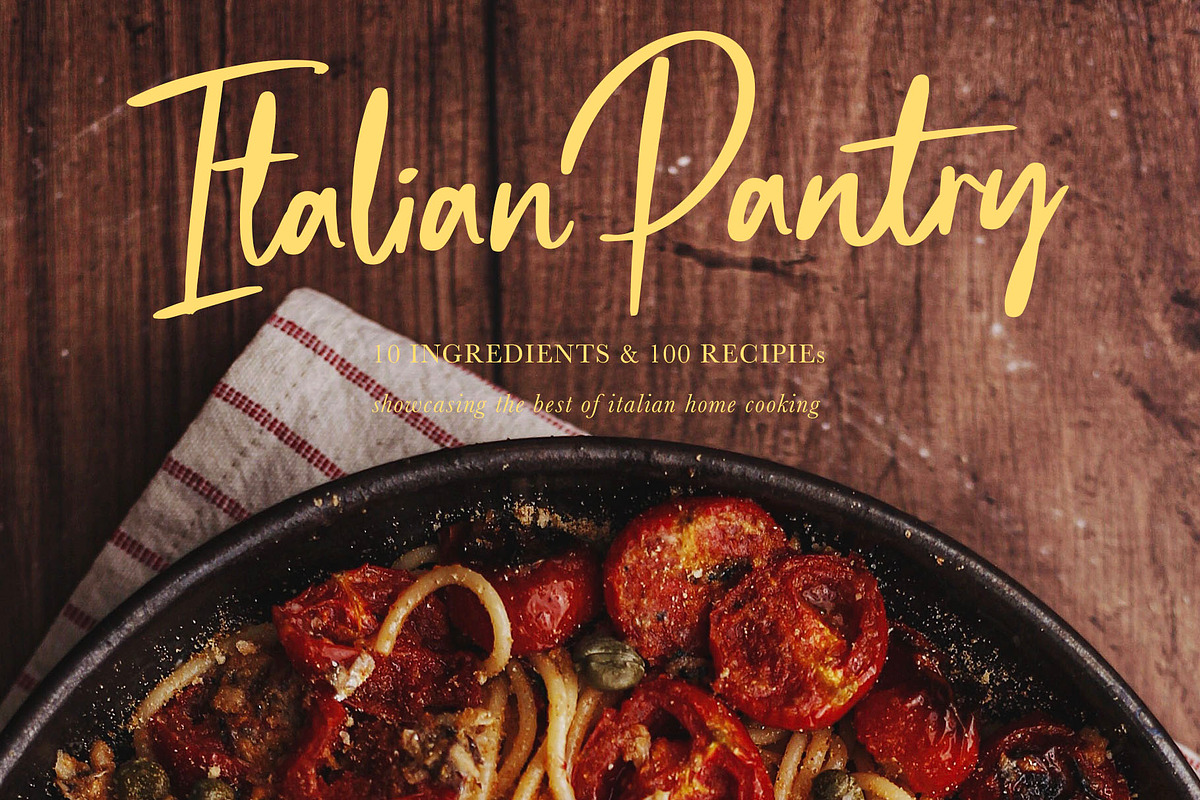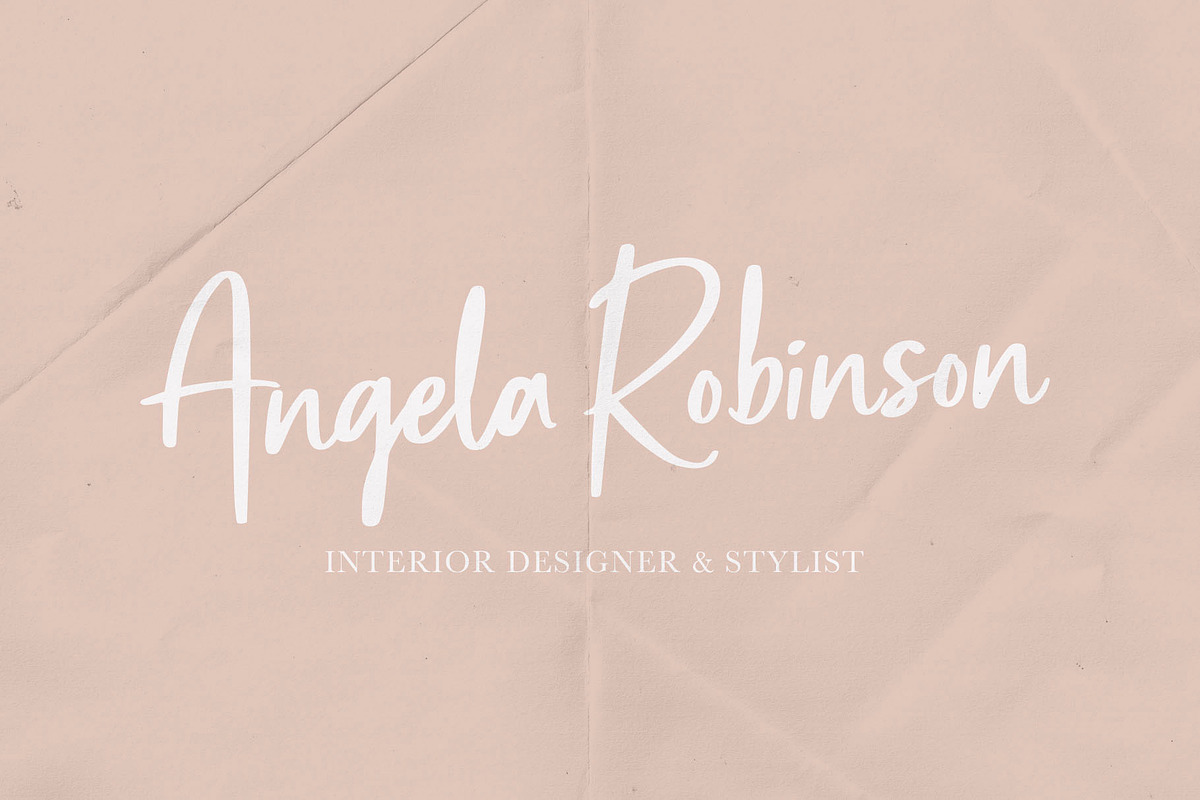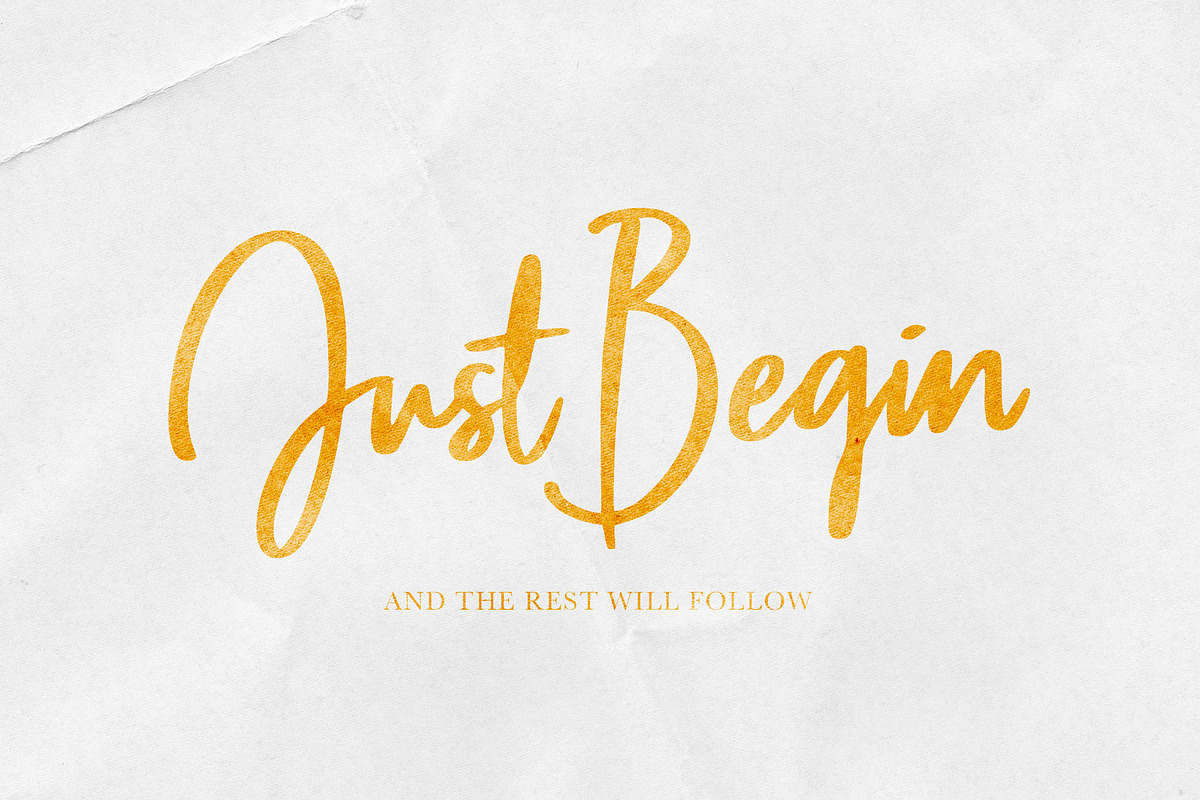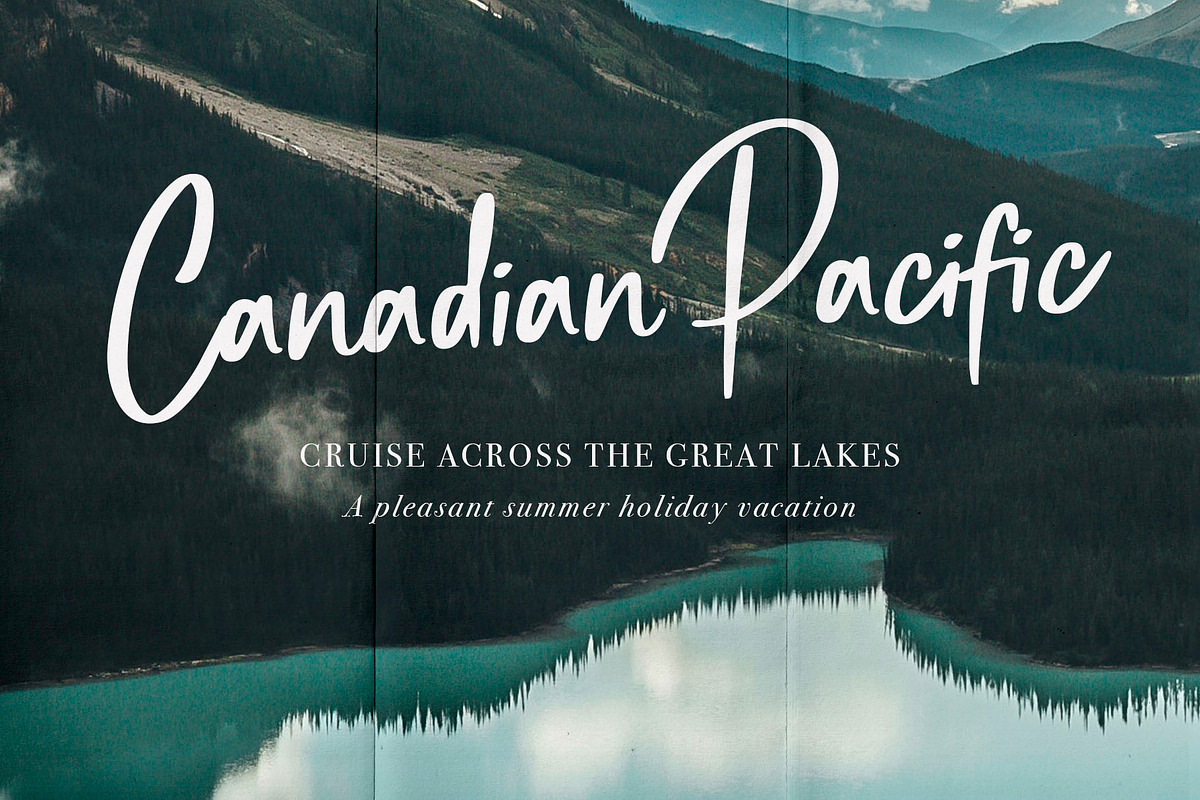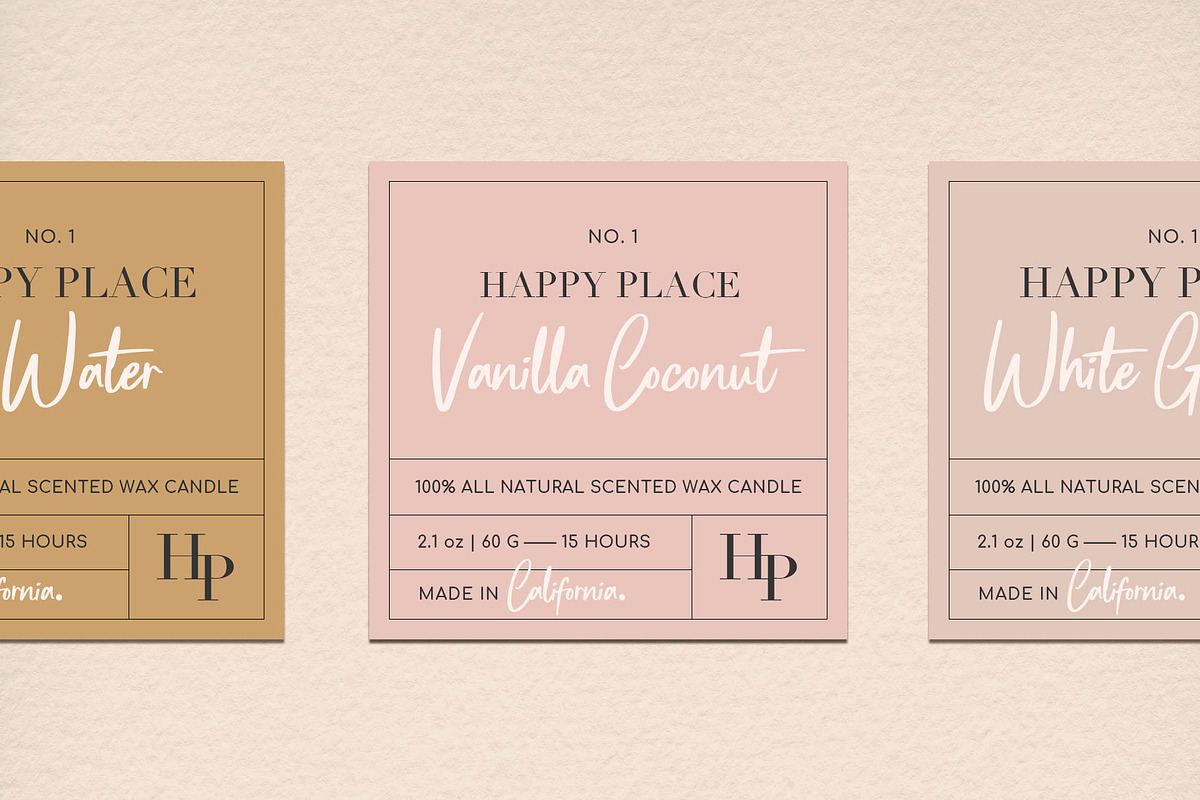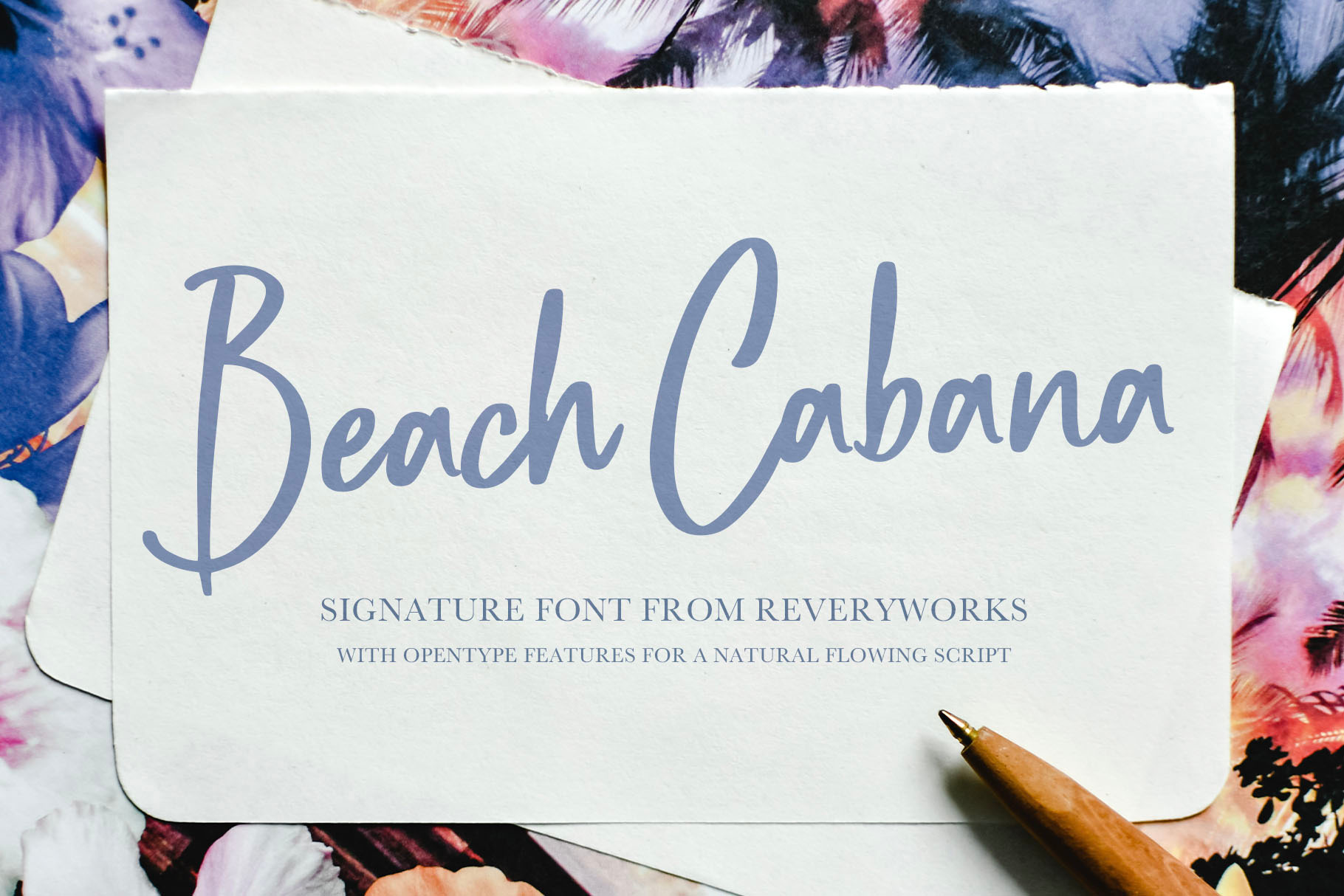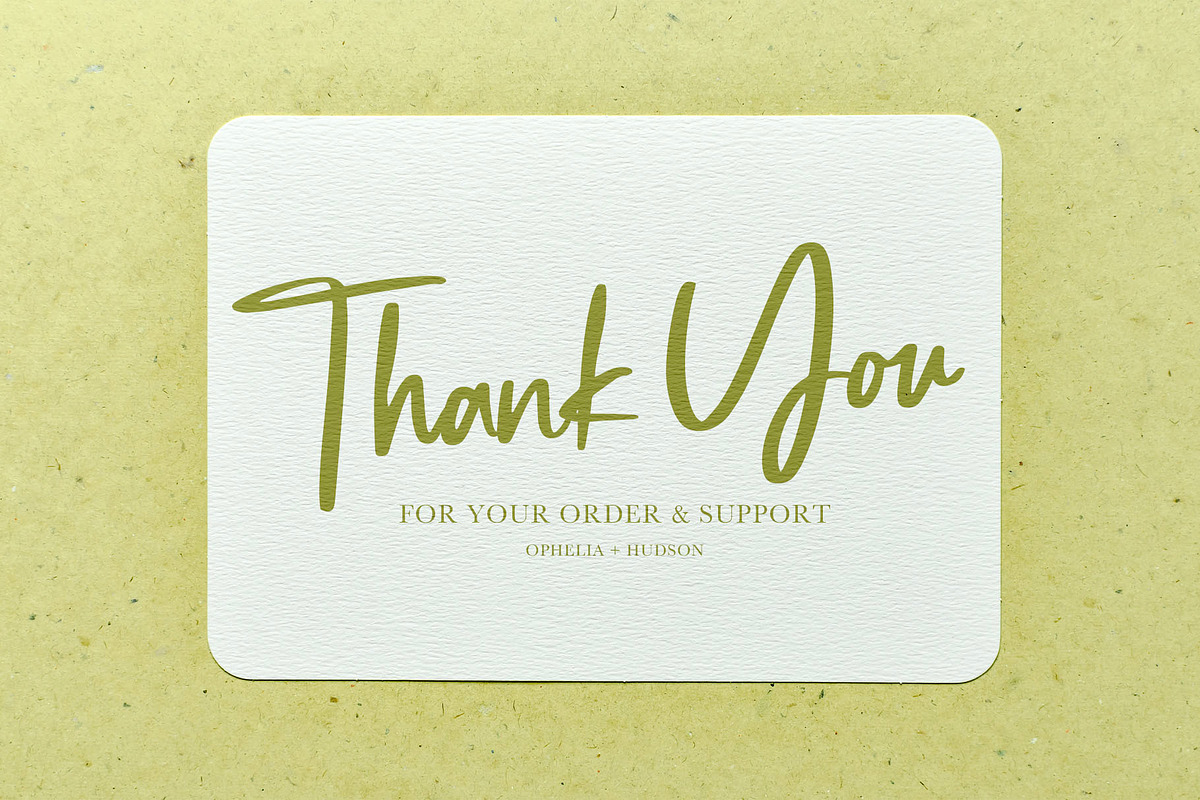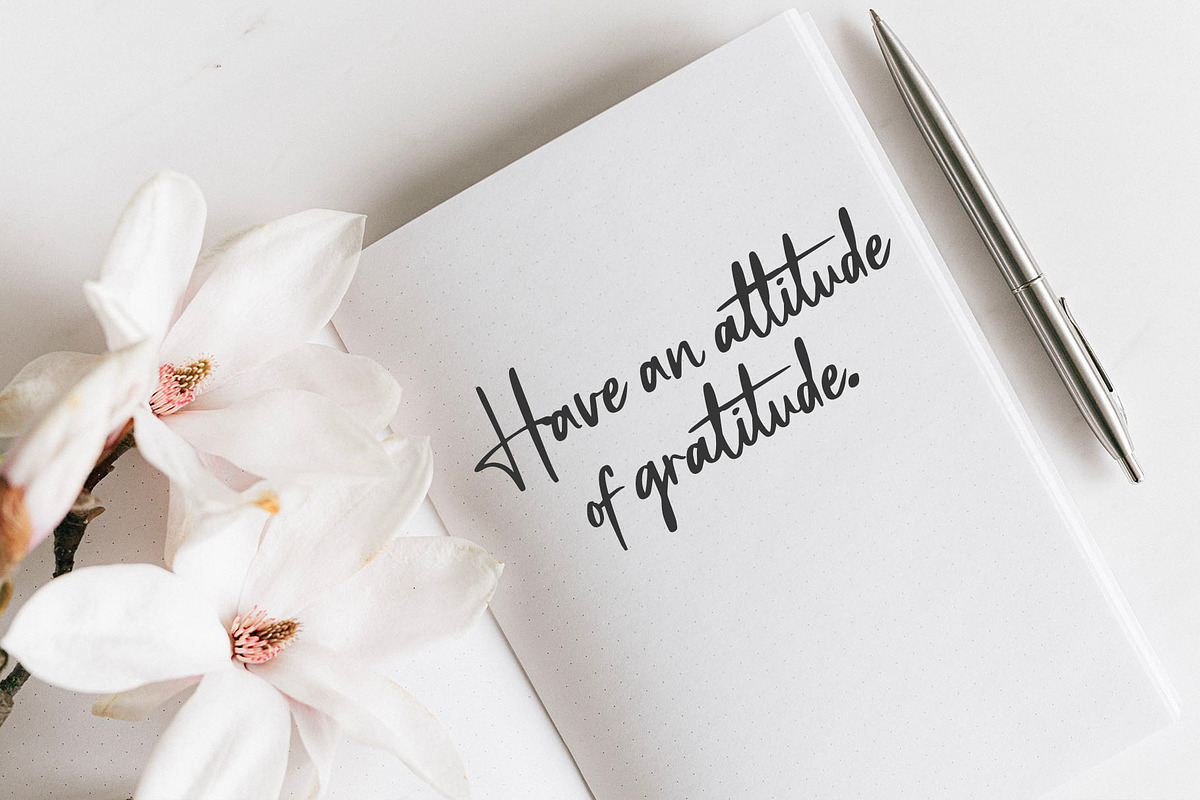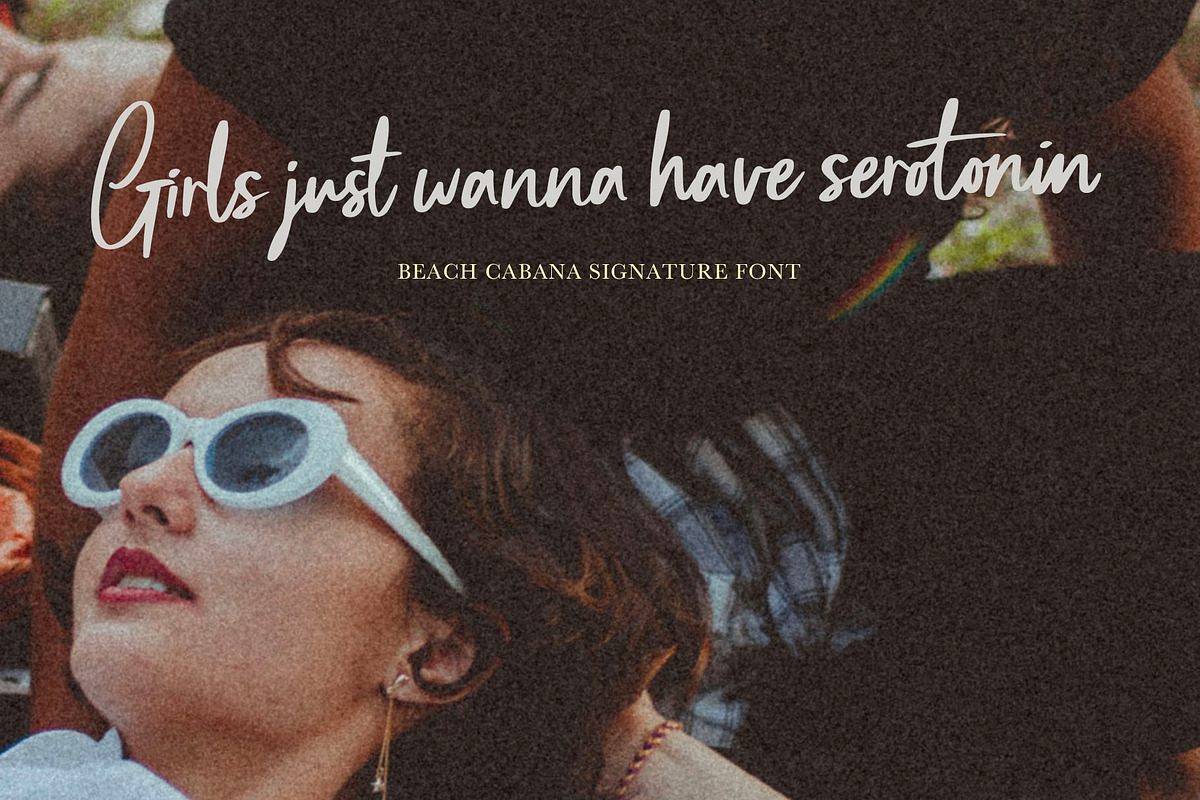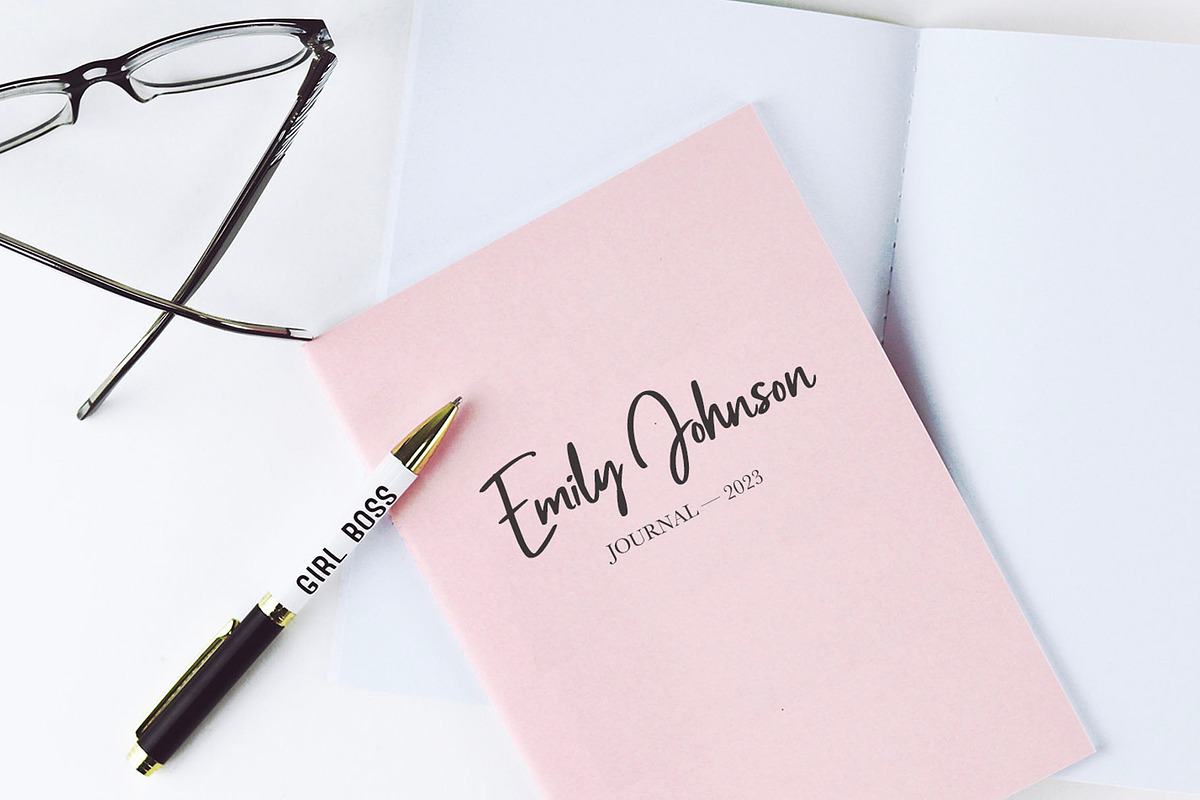
Beach Cabana Signature Font
Introducing Beach Cabana! A sweet signature font is here to make a statement in your designs! With a complete set of Uppercase Alternatives and ligatures for a natural signature effect.
Looks amazing for bloggers, book cover designs, travel content, instagram and social media, signature designs, you name it, its super versatile!